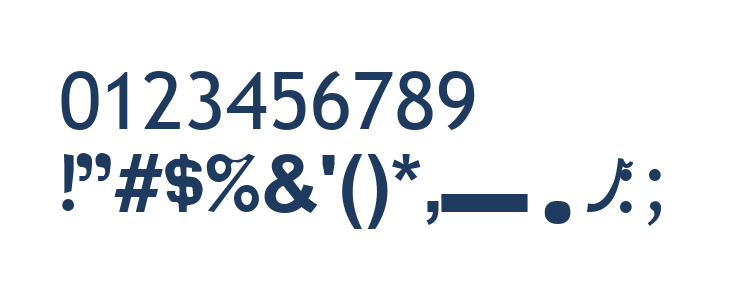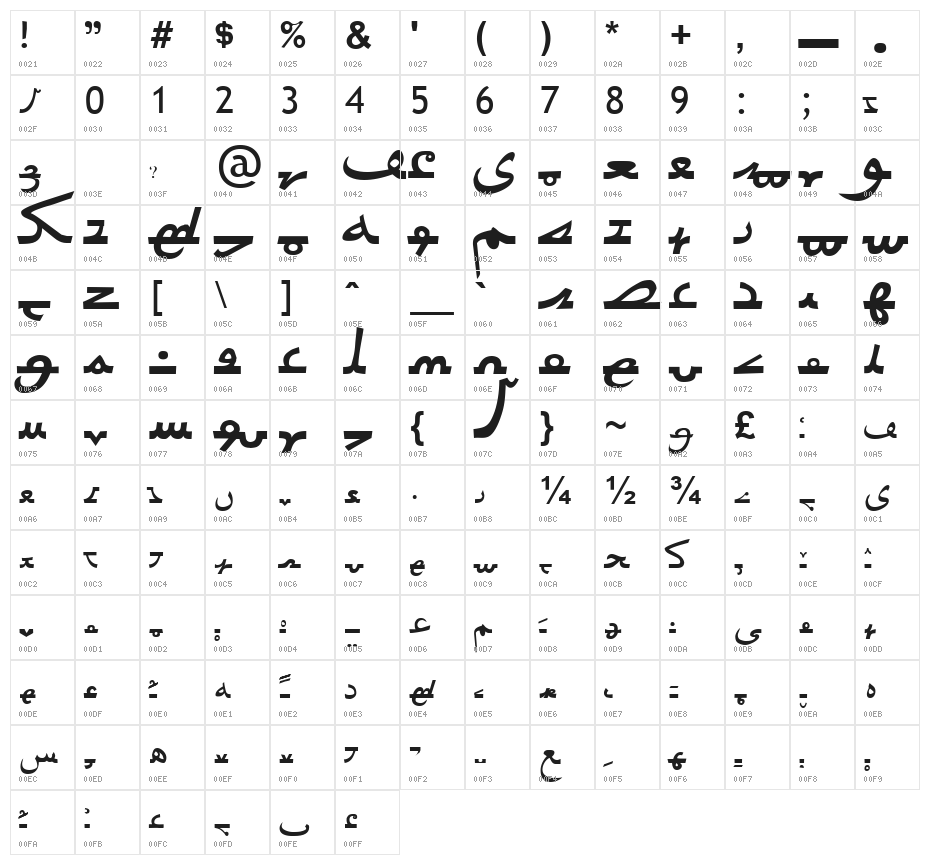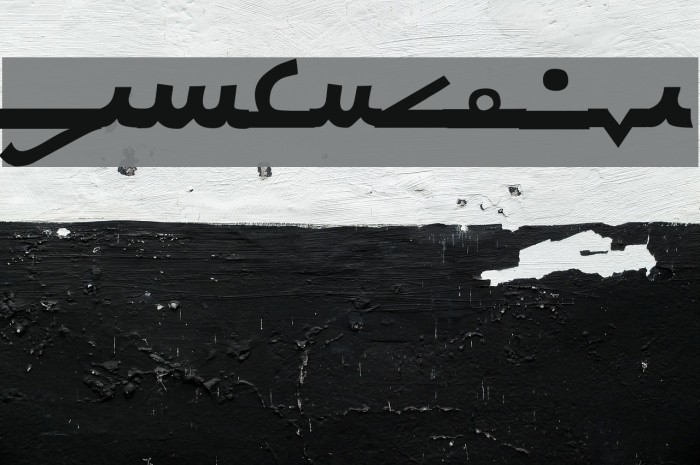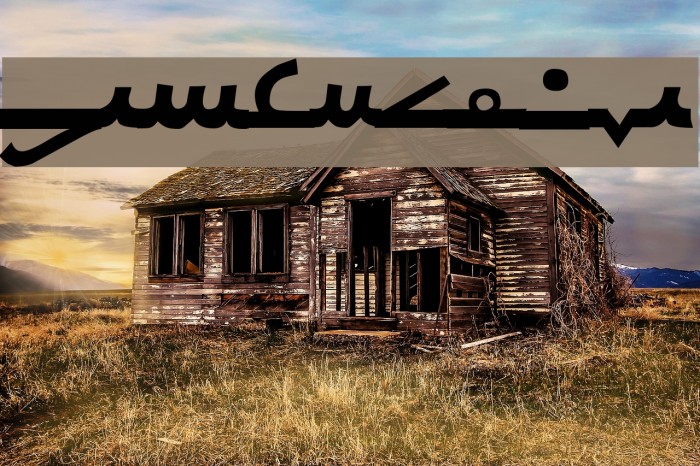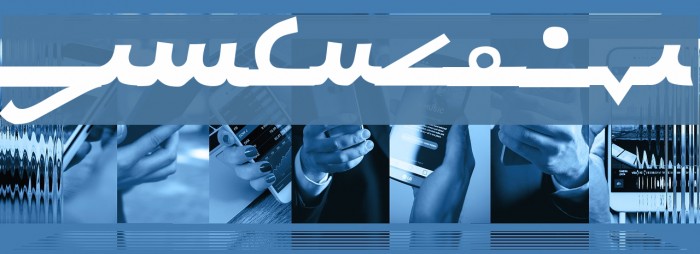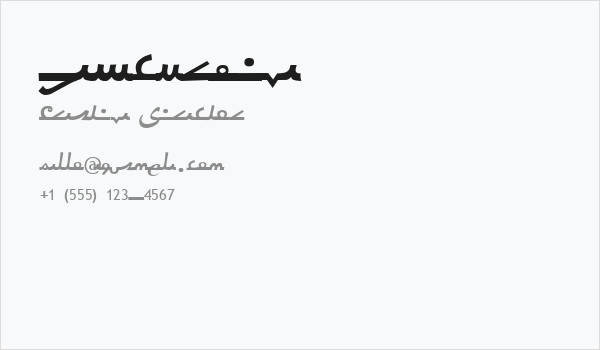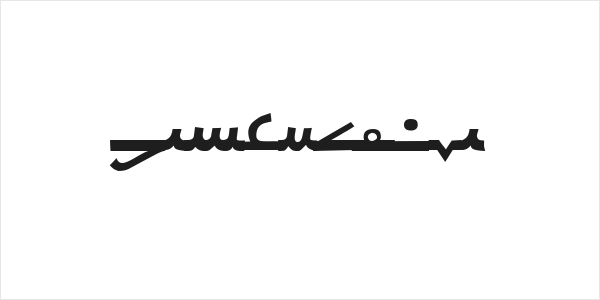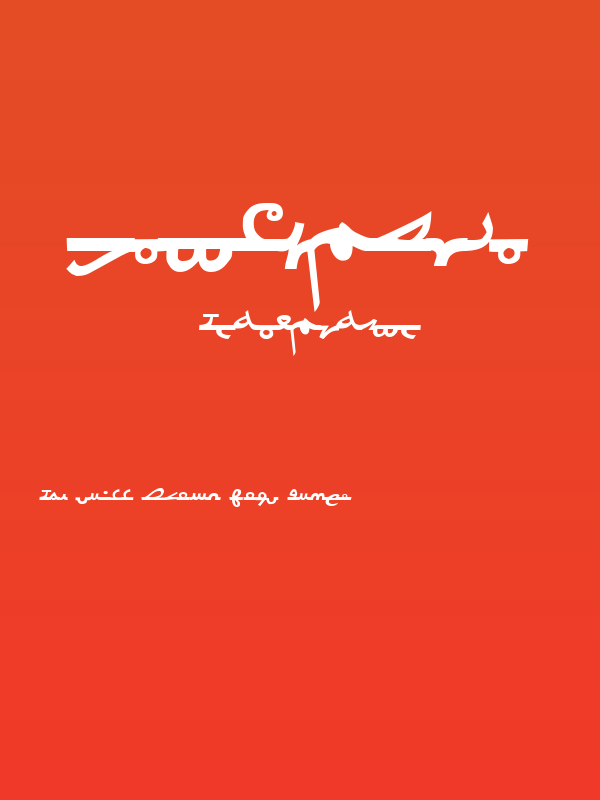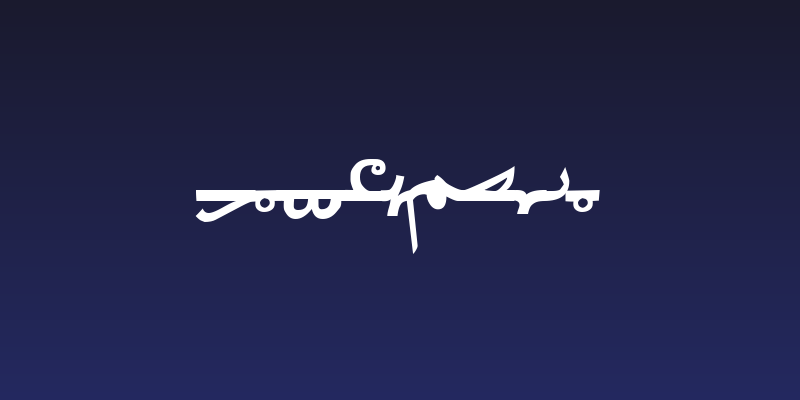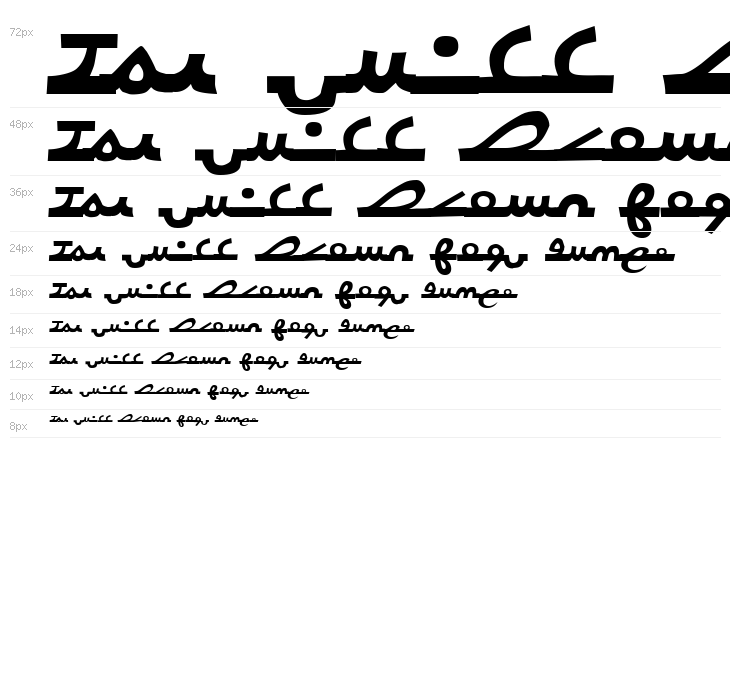
Newcursive Font
Newcursive Description
This font features a flowing, connected script style that mimics natural handwriting. The uppercase letters are elegantly looped and slightly slanted, giving a sense of fluidity and movement. The lowercase letters maintain a consistent baseline, enhancing readability while preserving the cursive aesthetic. Numbers are clear and distinct, with a slight curve that complements the overall design. Special characters are integrated seamlessly, maintaining the font's cohesive look. The bold strokes and smooth curves make it suitable for a variety of creative applications.
| Use Case | Logos, Headlines, Artistic projects |
| Proposed Projects | Ideal for wedding invitations, greeting cards, personal branding, and artistic projects that require a personal touch. |